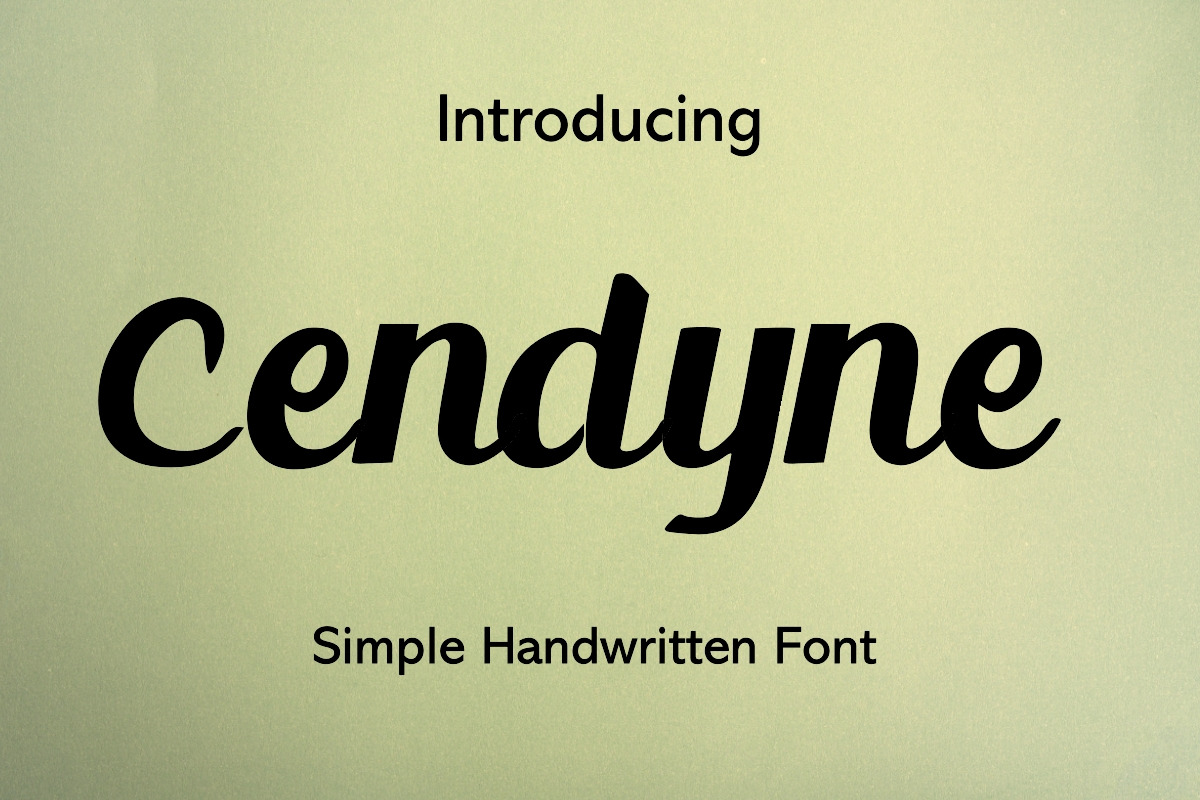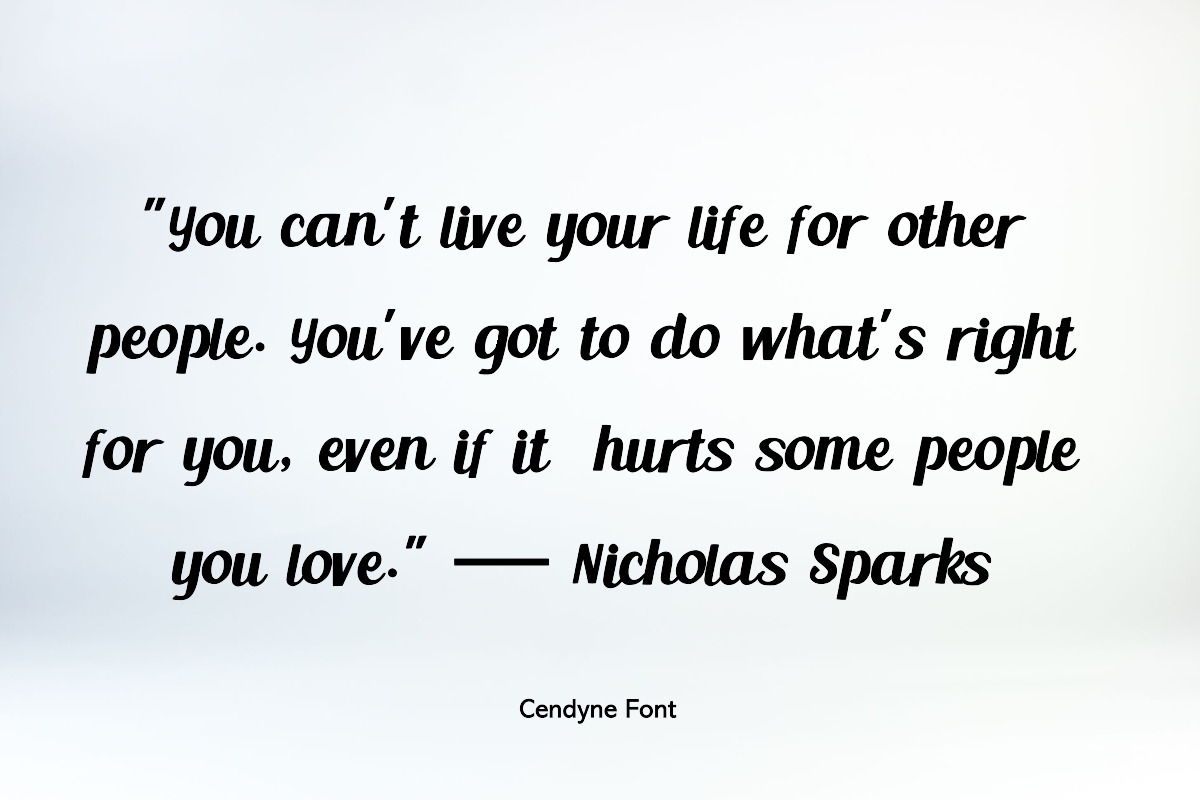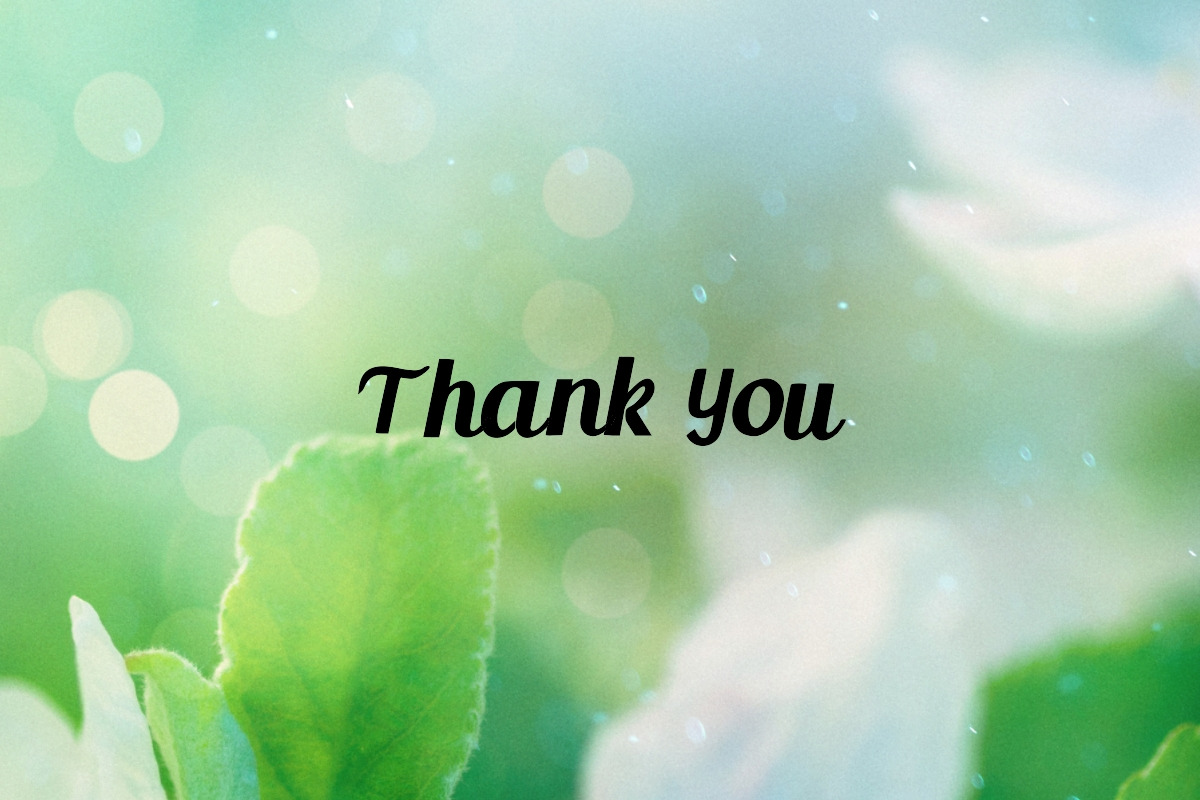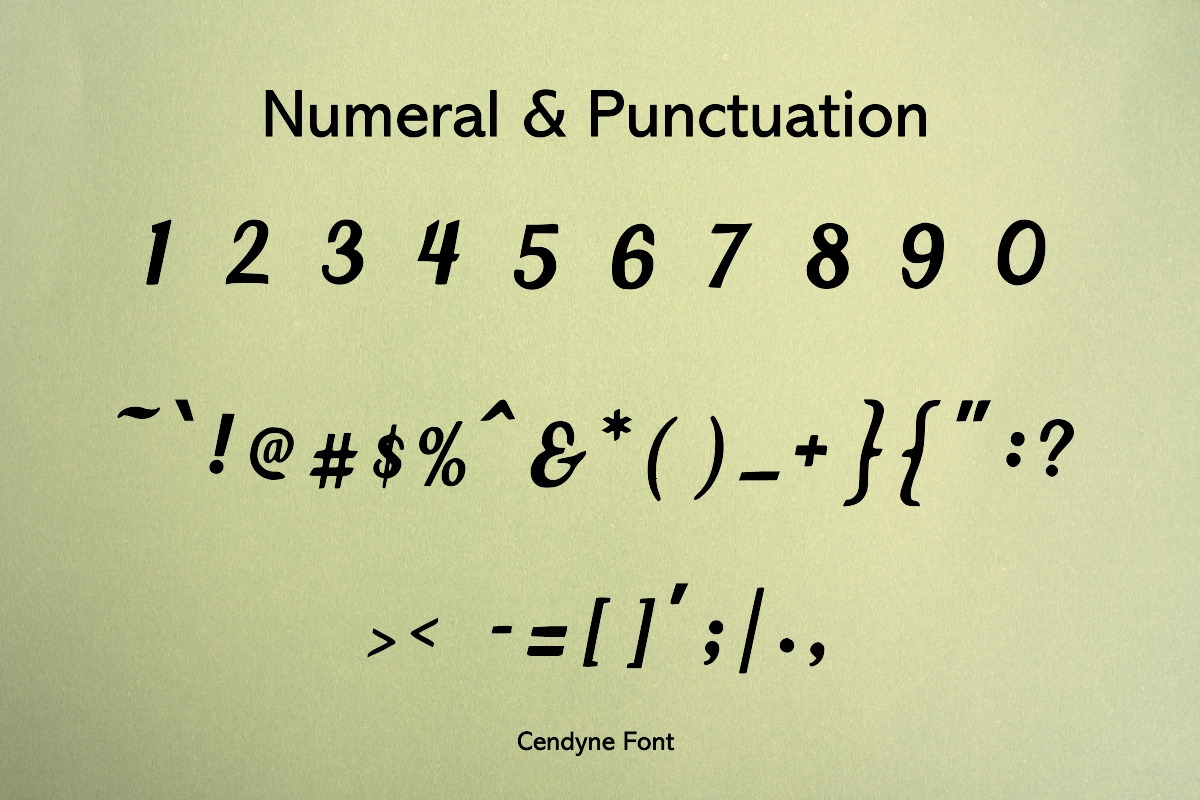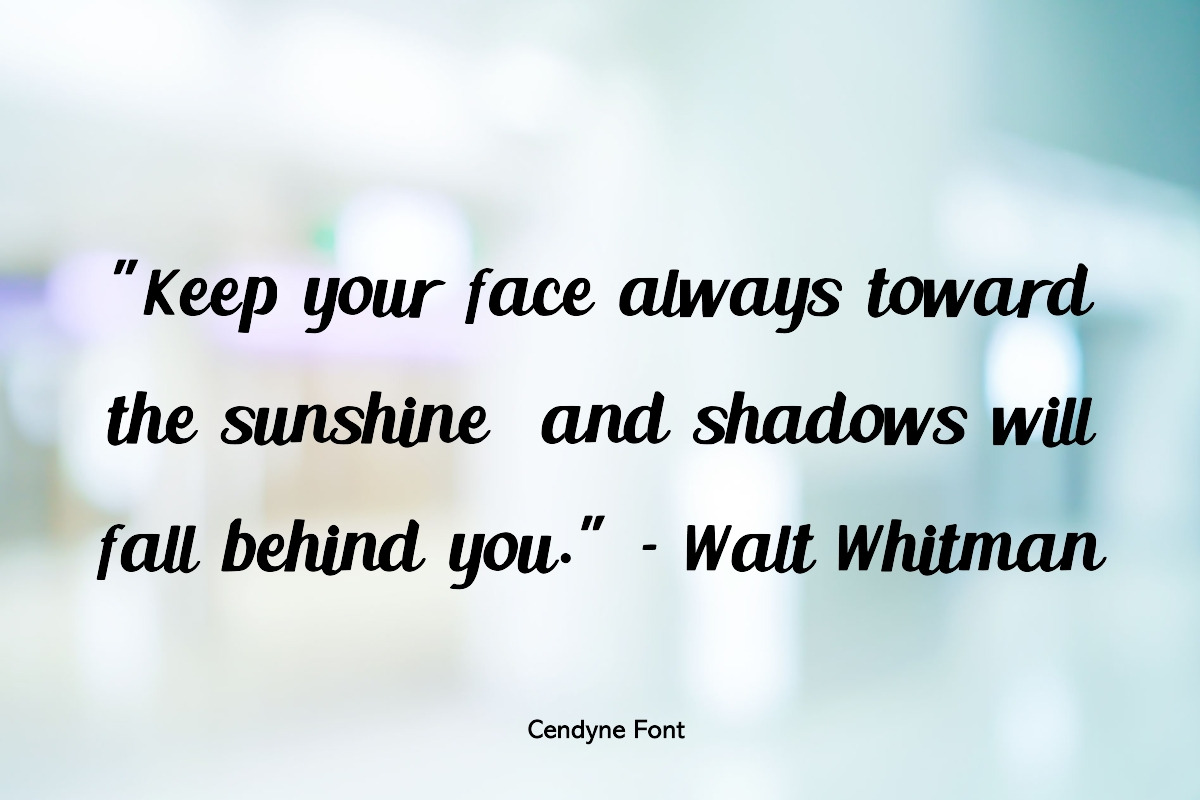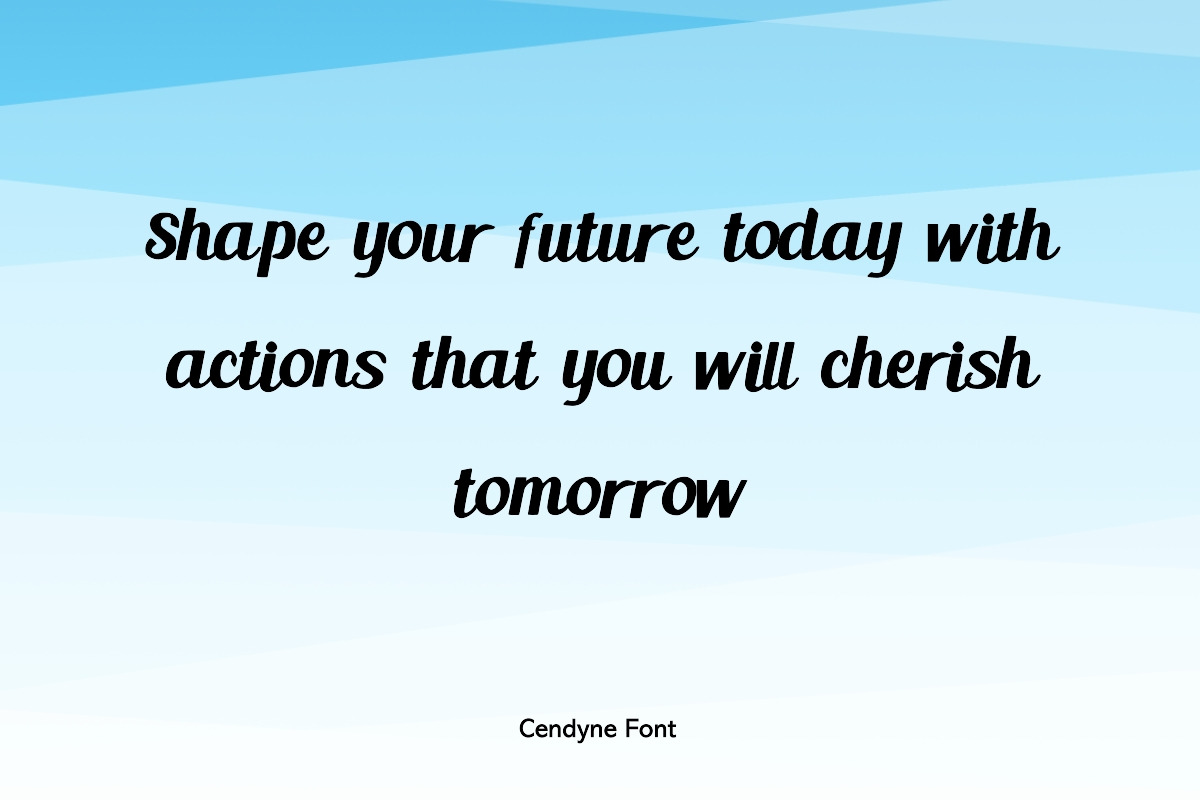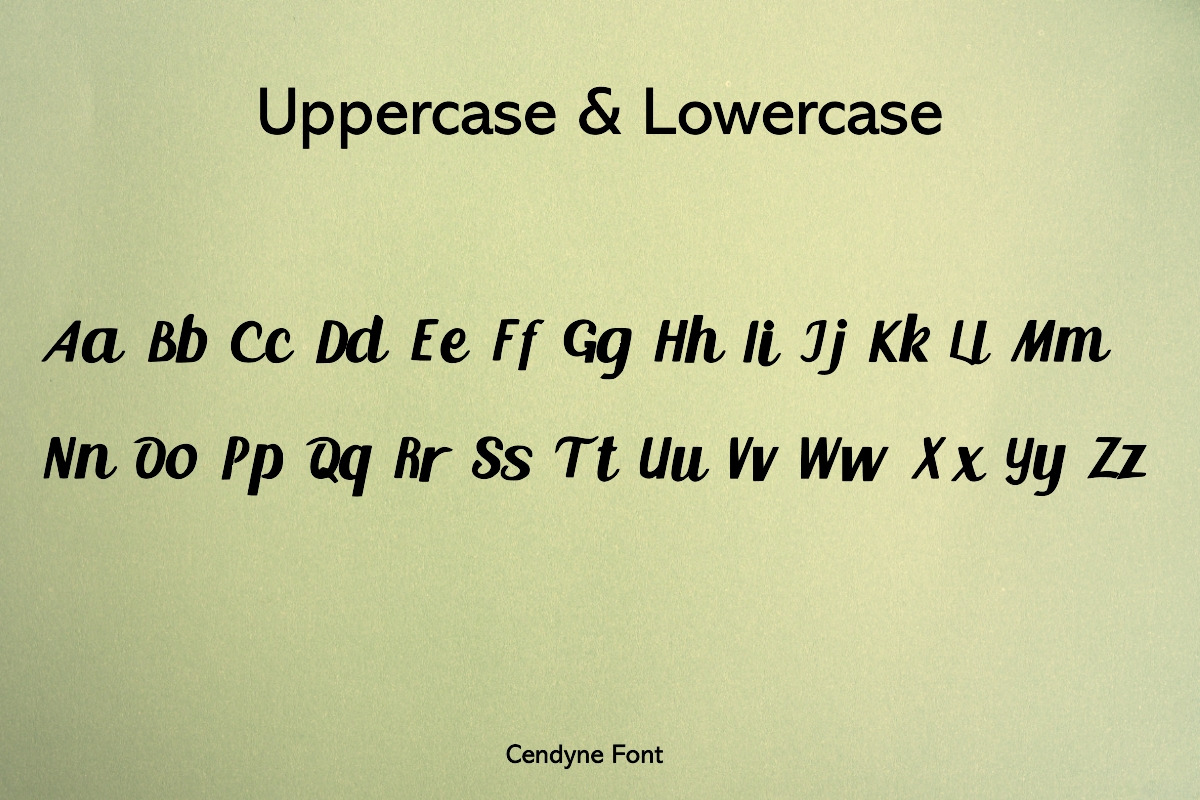
Cendyne Modern Handwritten Font
'Cendyne' – Simplicity Meets Elegance in Script
Introducing 'Cendyne', a modern handwritten font that embodies the grace of simplicity with the sophistication of a personal touch. Its clean and flowing script is perfect for those who seek to convey elegance in every character.
Ideal for:
- Minimalist Branding: Create a sleek, modern look with a font that speaks volumes in its understated beauty.
- Refined Design Projects: Let Cendyne's subtle elegance elevate your design to new heights.
- Personalized Messaging: Communicate with a font that's as individual and refined as your message.
'Cendyne' is not just a font; it's a statement of modern elegance, designed to leave a lasting impression.